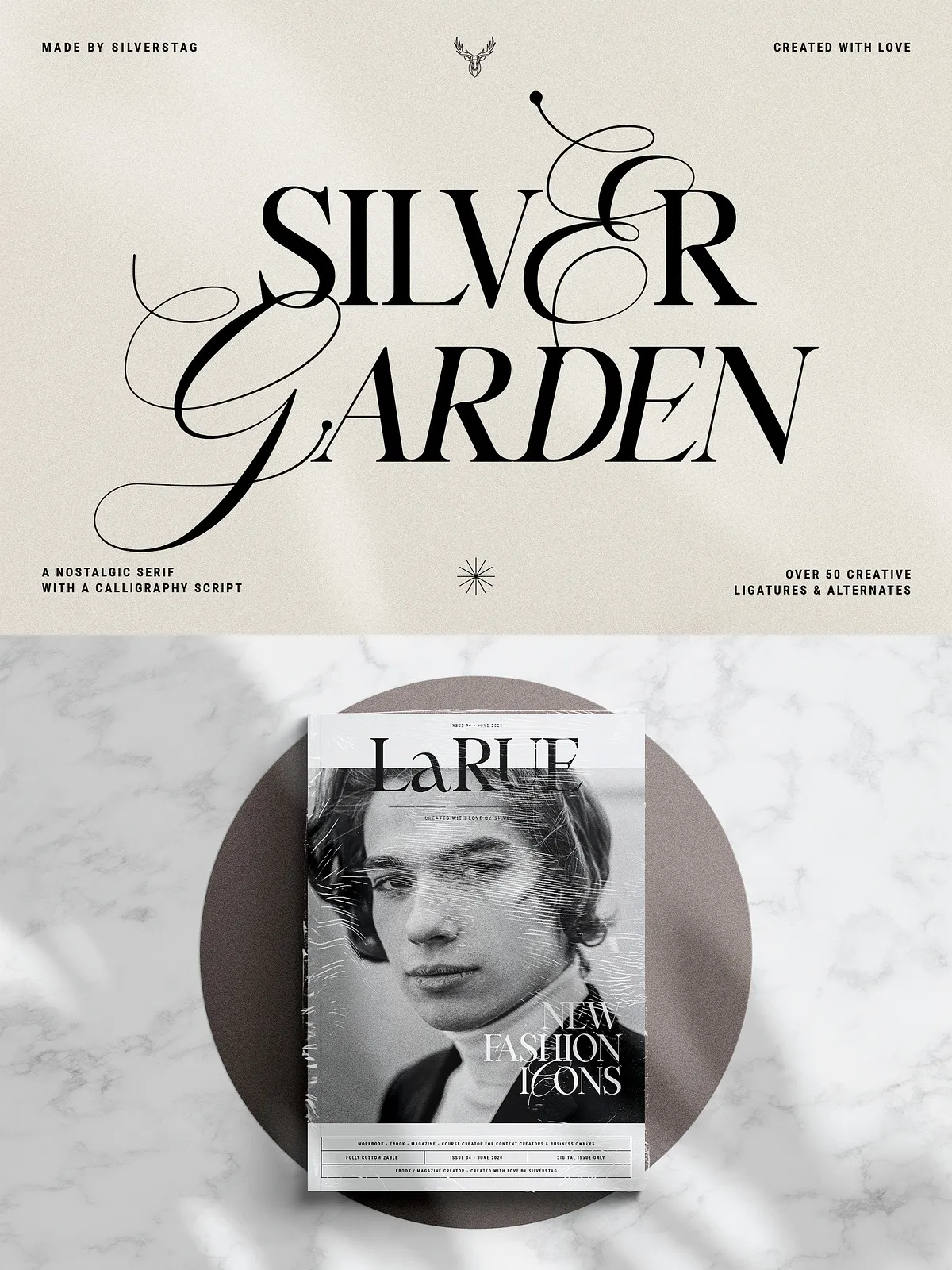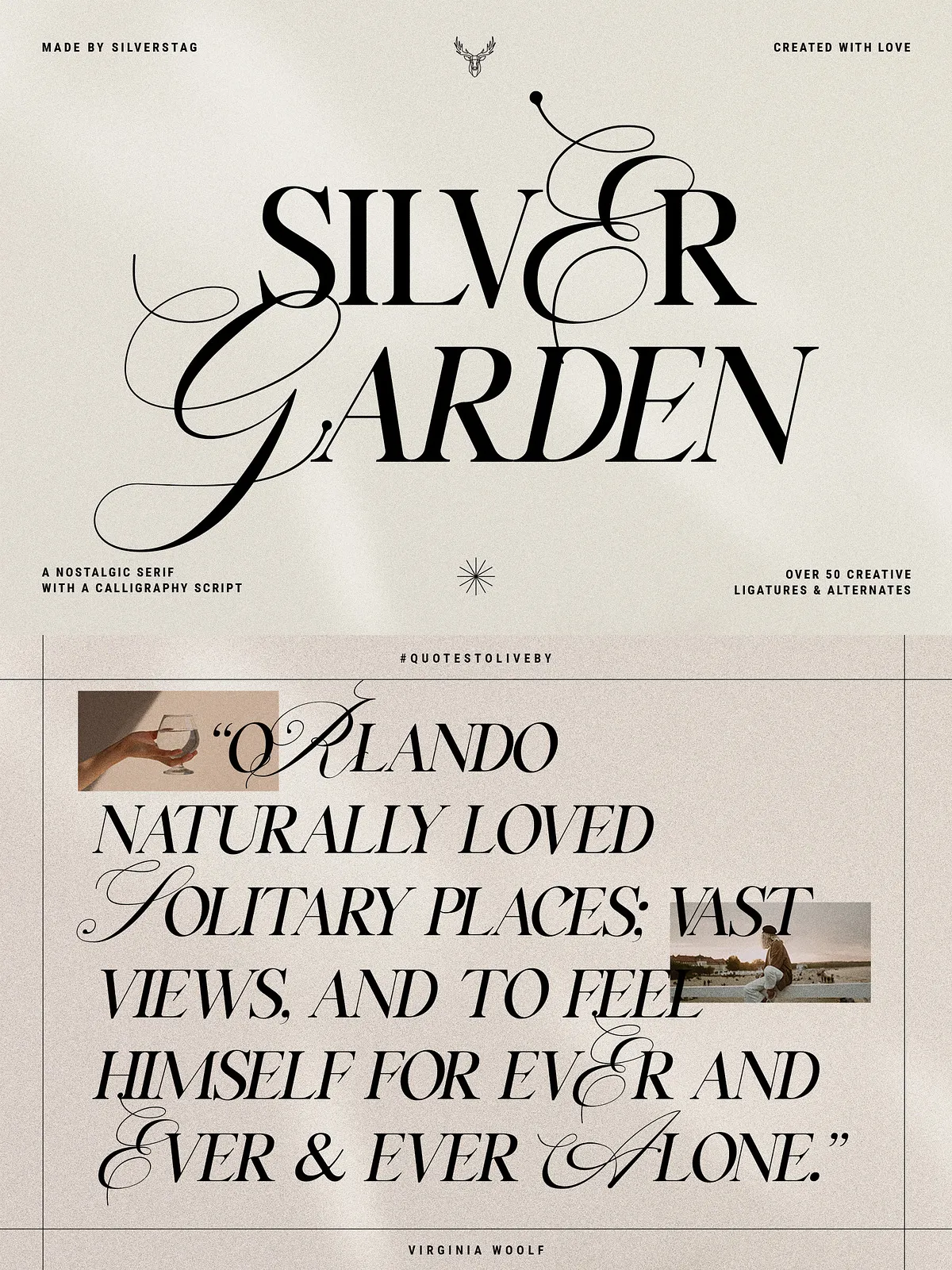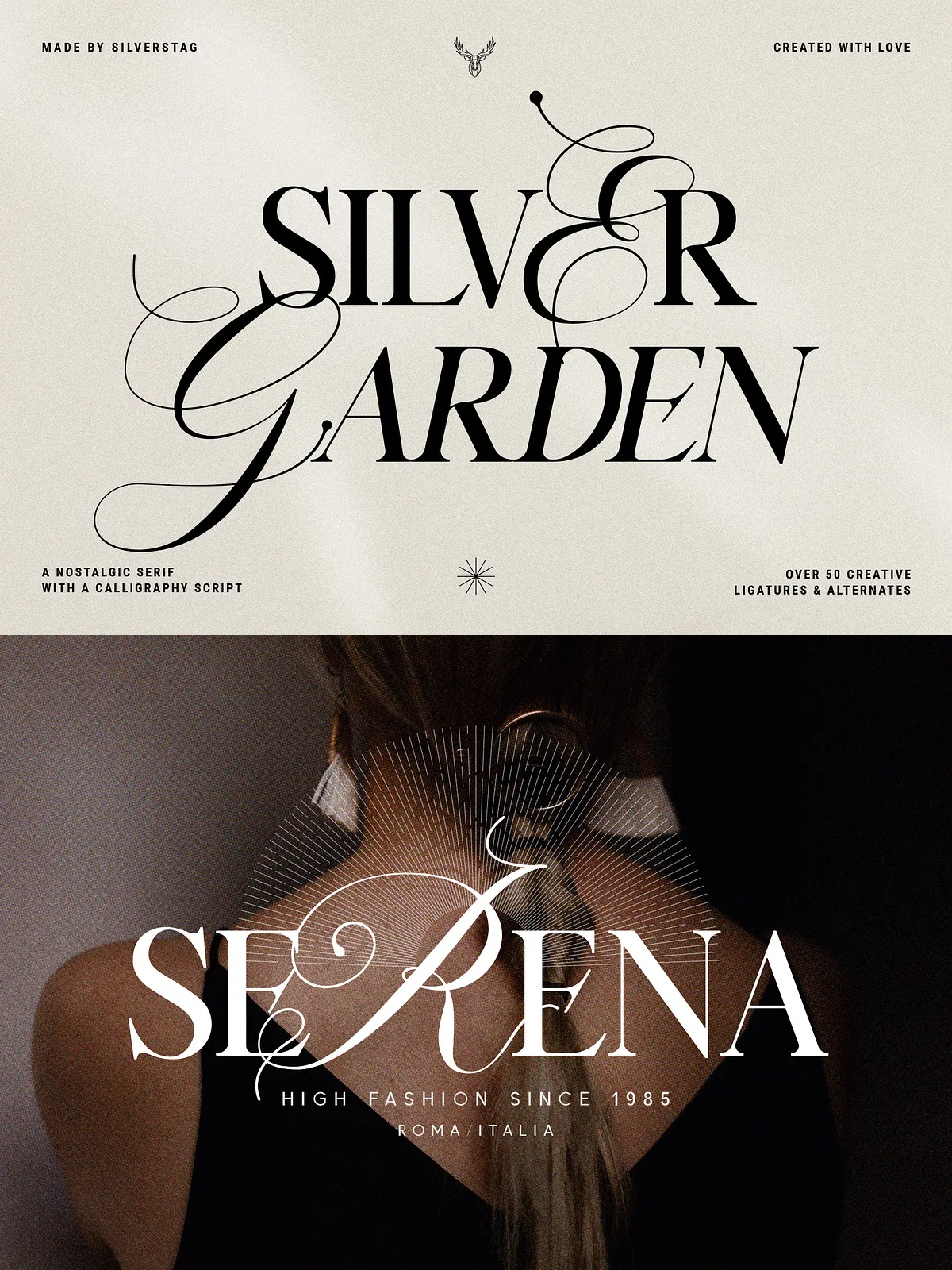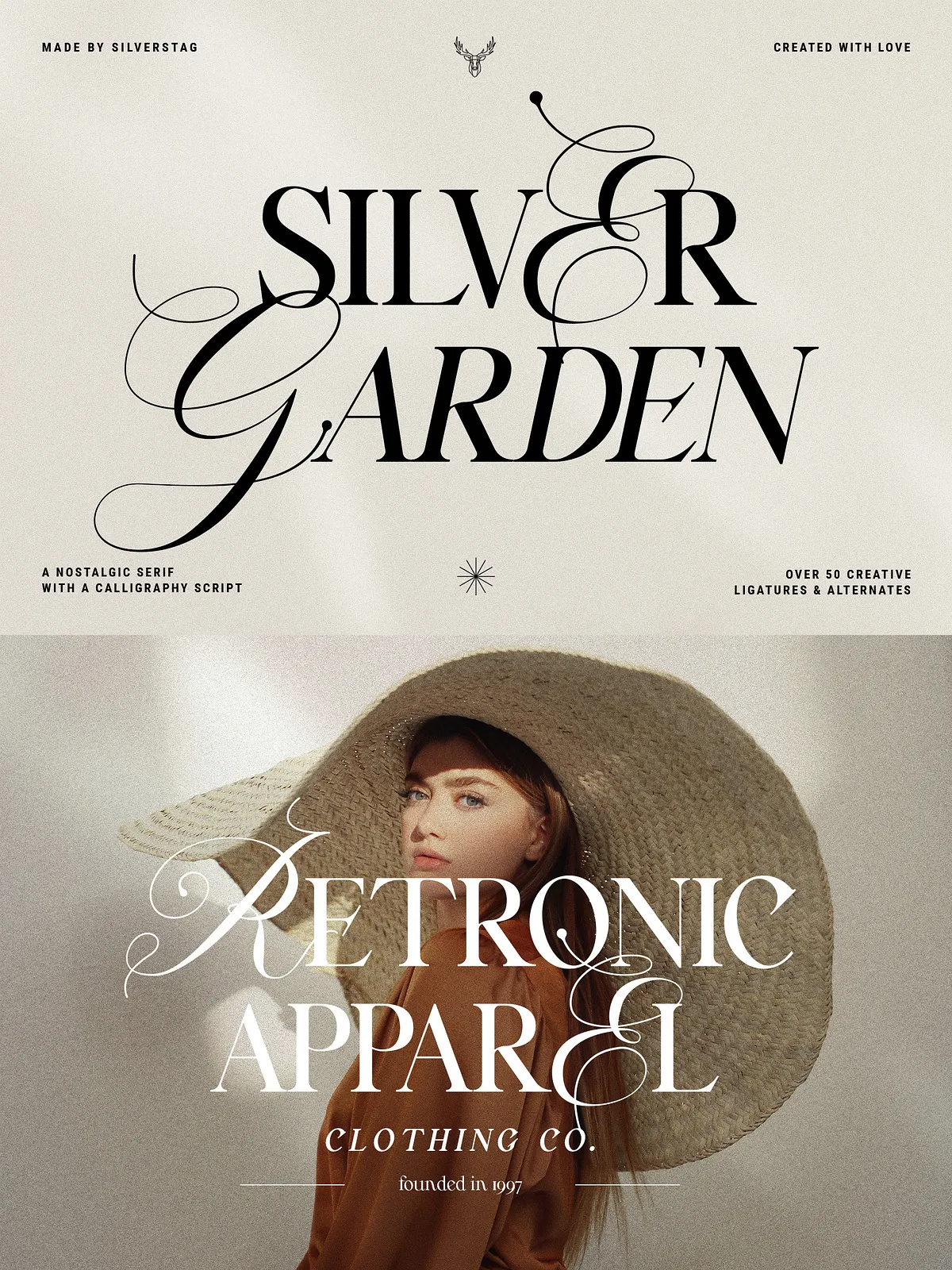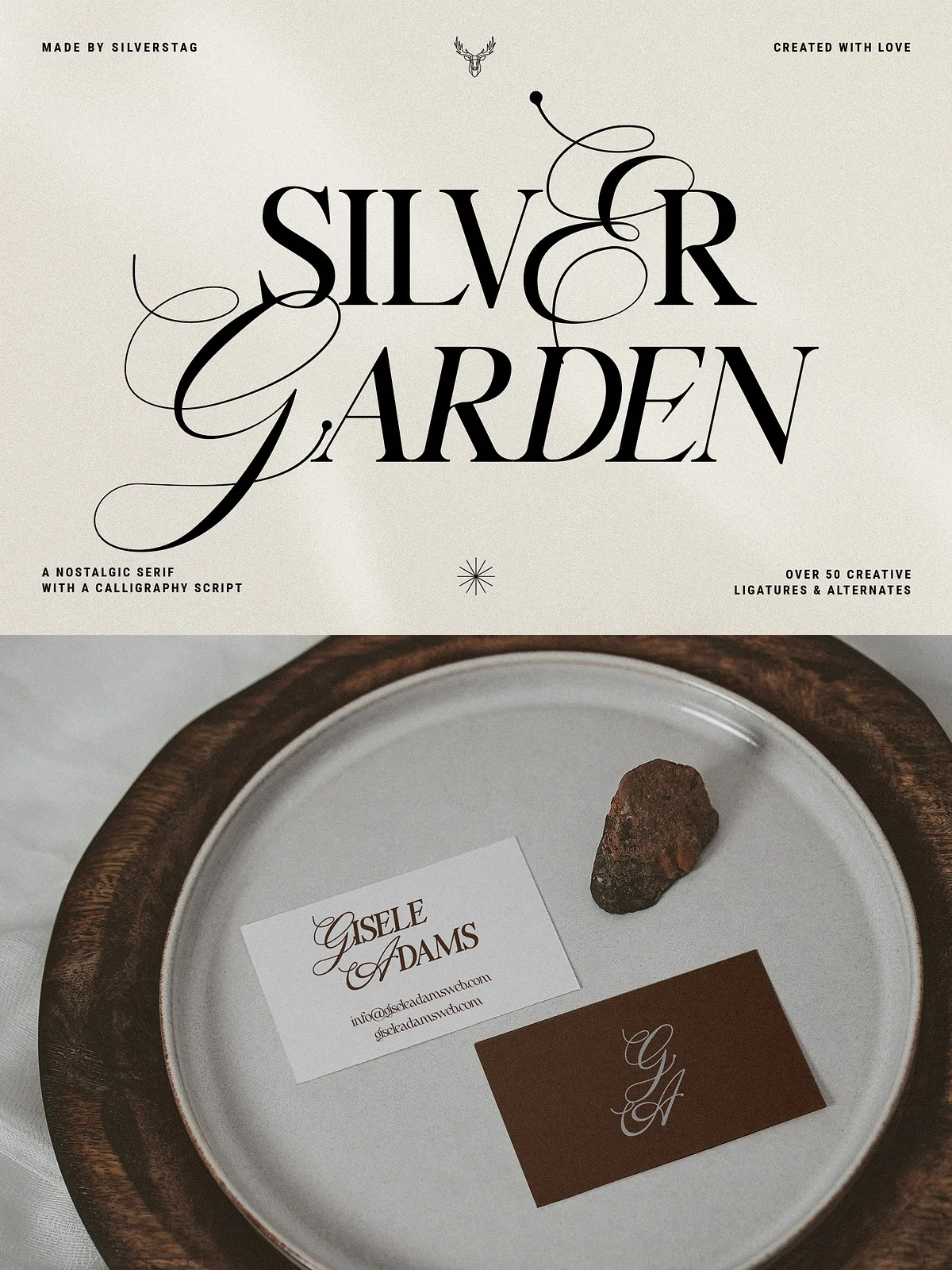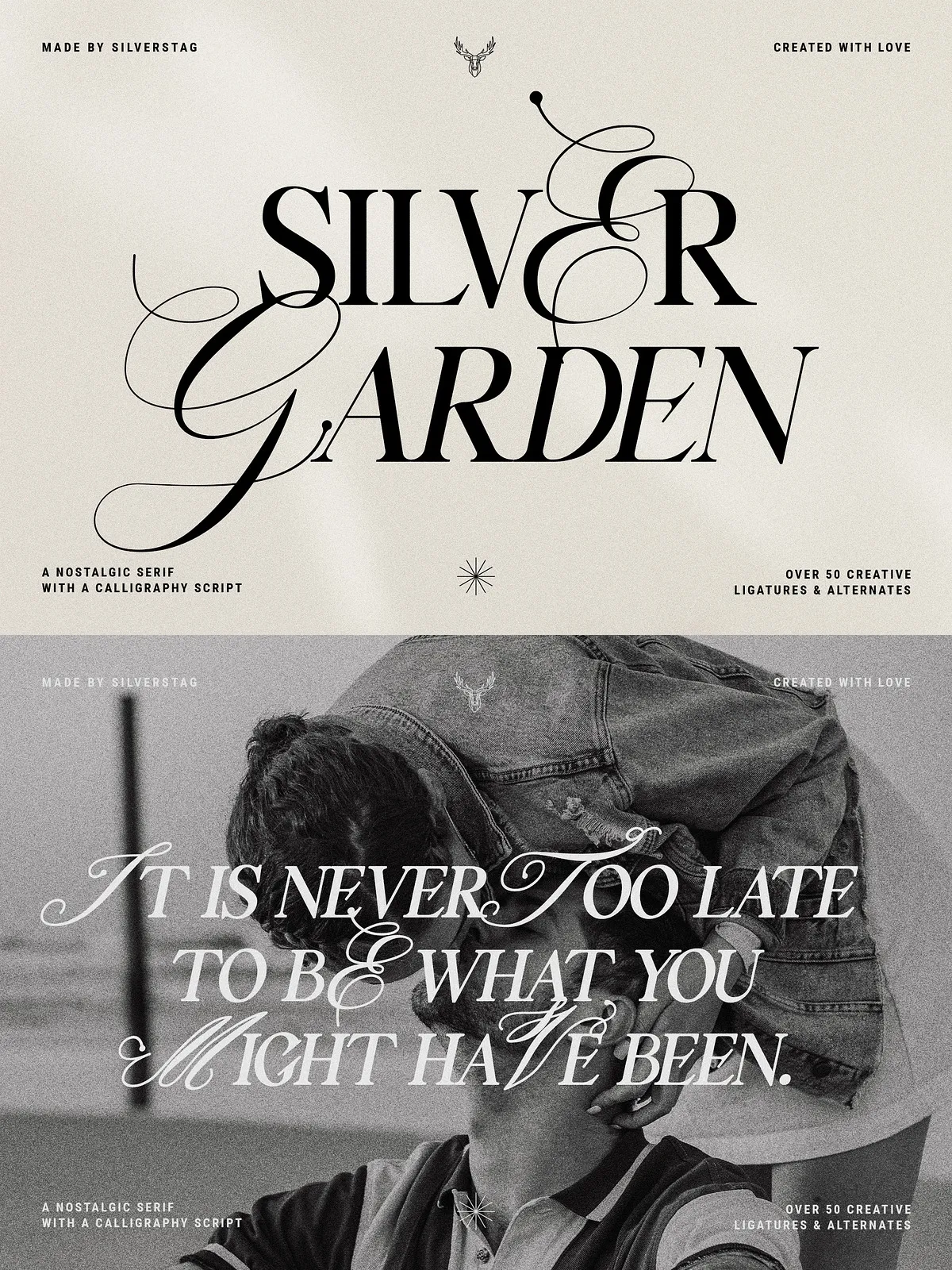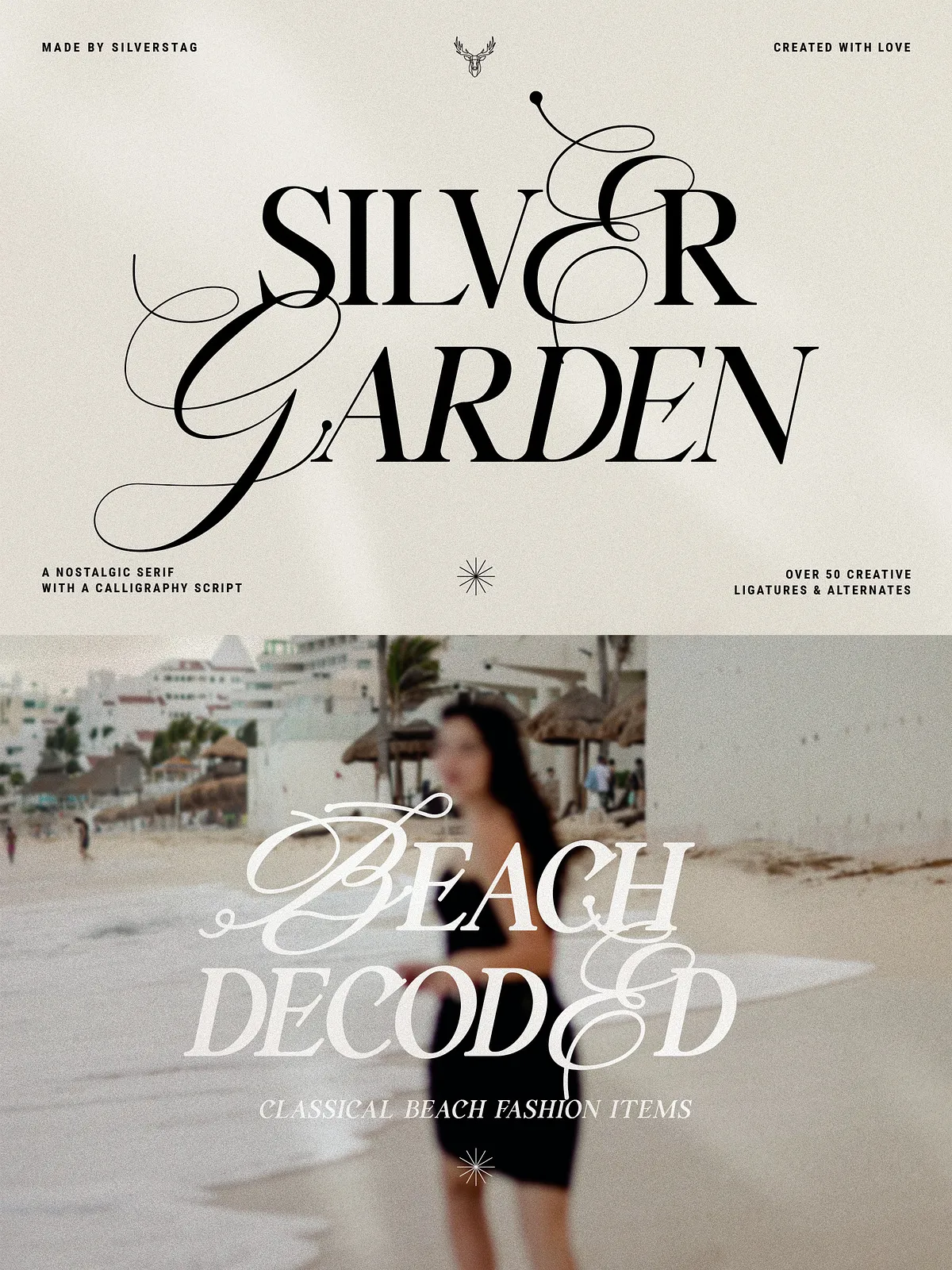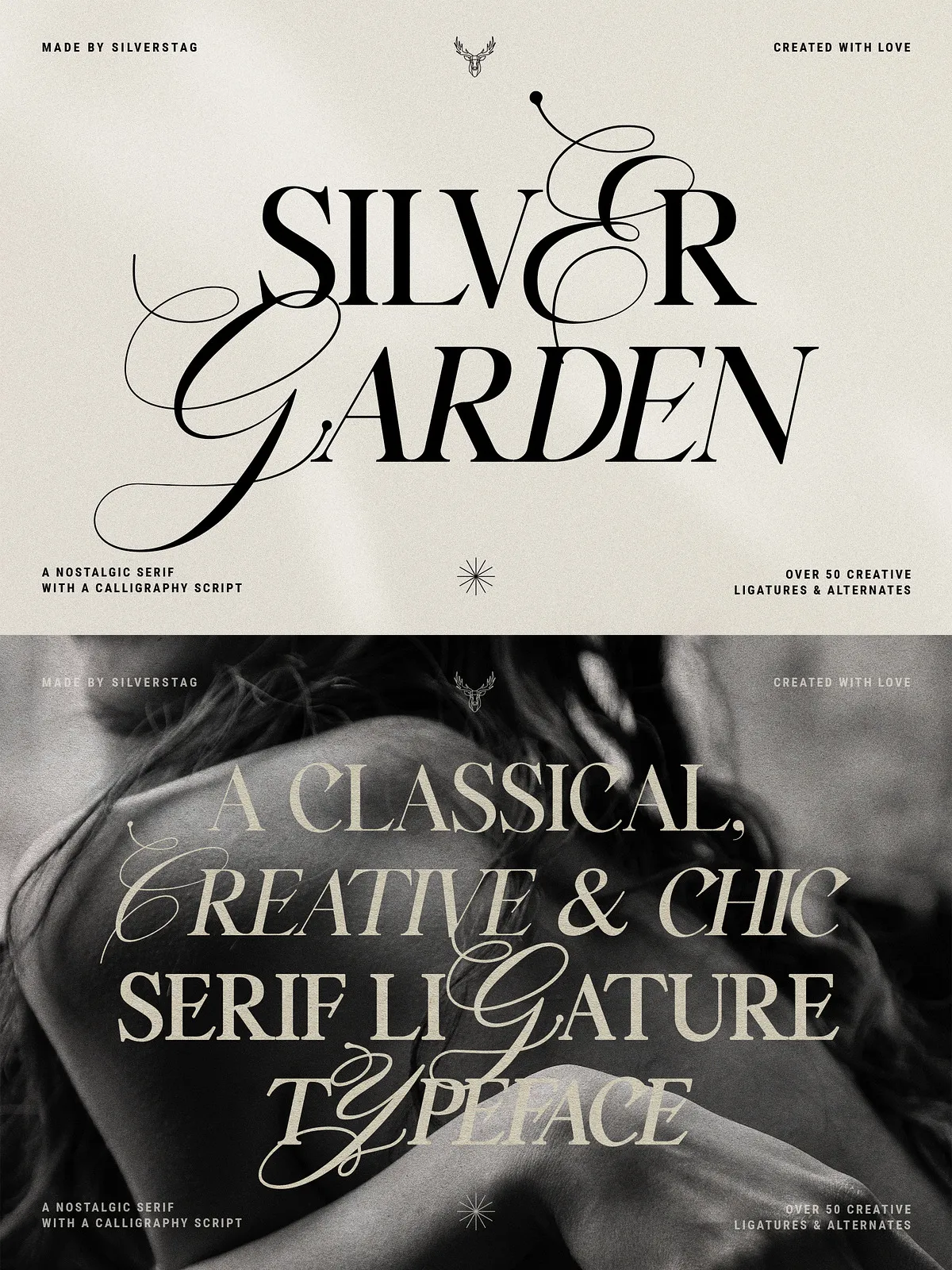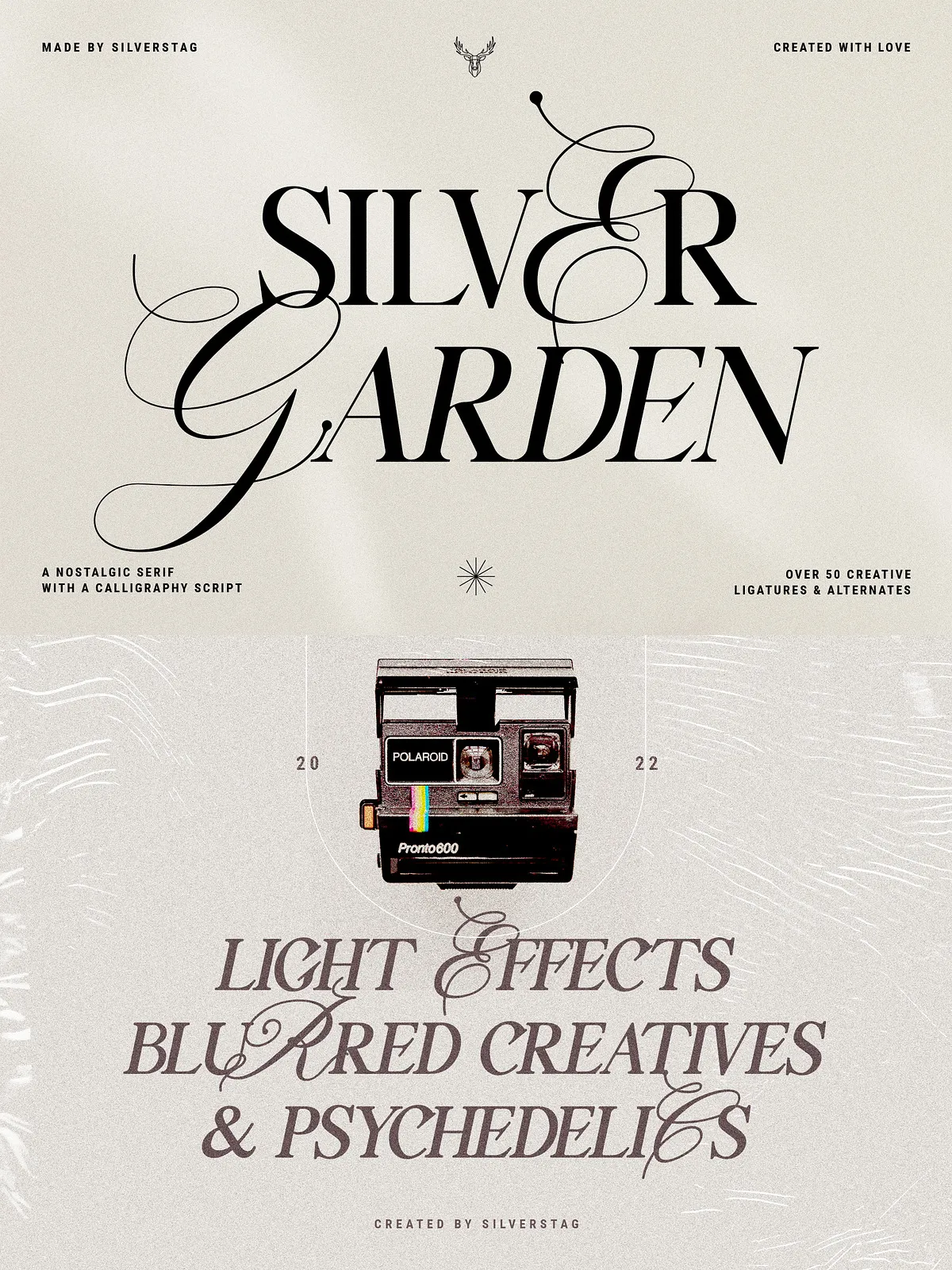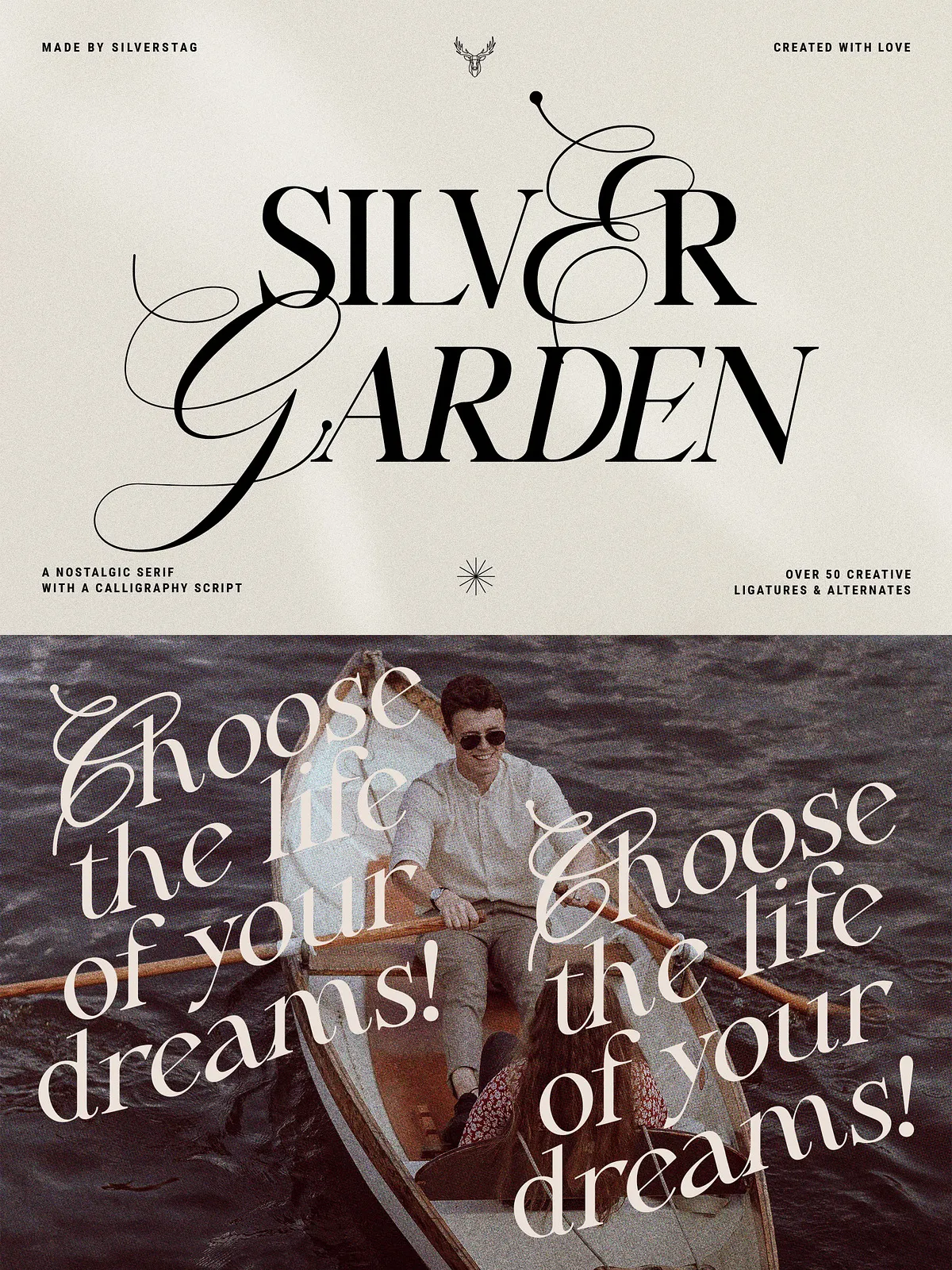
Step into a world where timeless grace meets creative nostalgia with Silver Garden, a thoughtfully crafted serif typeface designed for creators who value both sophistication and emotional resonance. More than just a font, it’s a visual story—born from a deep appreciation for retro design, handcrafted letterforms, and the subtle beauty of memory. Each character has been carefully sculpted to carry a sense of history, yet remains utterly modern and versatile across any project.
Why Silver Garden Stands Out in a Crowded Design Scene
In a sea of predictable typography, Silver Garden rises with a unique voice. Its design bridges eras—fusing the sharp precision of contemporary type with the soft curves and expressive flair of mid-20th century craftsmanship. Whether you’re creating luxury branding, artisanal packaging, wedding invitations, or editorial layouts, this font delivers instant visual distinction and emotional depth.
Four Distinct Styles for Every Creative Need
Whether you’re after subtle class or bold statement, Silver Garden offers four expertly designed variants:
- SilverGarden (Regular): Sleek, refined, and effortlessly chic—ideal for body text, headings, and elegant layouts.
- SilverGarden-Italic: Flowing and graceful, this serif italic adds a touch of sophistication and poetic rhythm.
- SilverGarden-Bold: Transforms the classic serif into a powerful, vintage-inspired presence—perfect for posters, logos, and focal points.
- SilverGarden-BoldItalic: The showstopper. With enhanced curves and dramatic flair, it delivers nostalgia with modern impact.
Rich Typography Features That Empower Your Design
Silver Garden isn’t just beautiful—it’s intelligent. Each version comes packed with professional-grade typographic tools that elevate your work instantly:
1. Over 25 Lowercase Ligatures
Reduce visual clutter and enhance readability with hand-tuned ligatures that naturally connect letters like ‘fi’, ‘fl’, ‘ff’, and more. These aren’t random—every ligature is designed to maintain the font’s elegant flow.
2. Complete Set of Uppercase Script Alternates
Swap standard uppercase letters for ornate, calligraphic alternates to add personality to logos, headers, and titles. These script options were drawn with precision to complement both the regular and bold styles.
3. Full Language & Character Support
Designed for global creators: includes comprehensive support for Western European, Cyrillic, Greek, and extended Latin characters. You can write in dozens of languages without compromising design quality or legibility.
Leverage Silver Garden for Any Project That Demands Soul
This font family thrives in applications that demand more than just readability—projects where emotion, identity, and aesthetics intersect:
- High-end fashion branding and boutique labels
- Invitations, announcements, and event signage
- Artisan food and beverage packaging
- Editorial design, magazines, and zines
- Personal websites, portfolios, and blog headers
- Printed books, journals, and limited-run art prints
Final Thoughts: A Typeface Meant to Be Loved
Silver Garden wasn’t created just to be used—it was created to be felt. Every curve, every ligature, every alternate letter reflects a vision of design that celebrates the past while embracing the future. It’s not just a tool. It’s a companion for creative minds who believe that type has meaning.